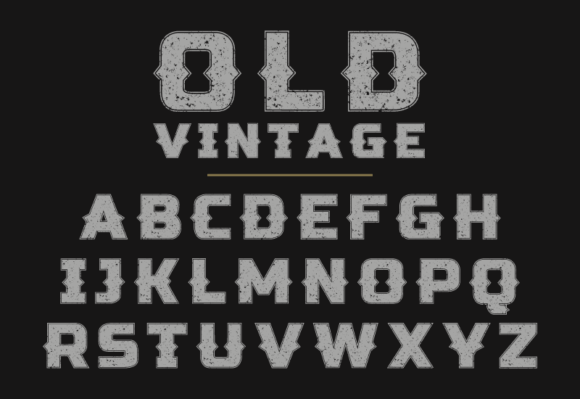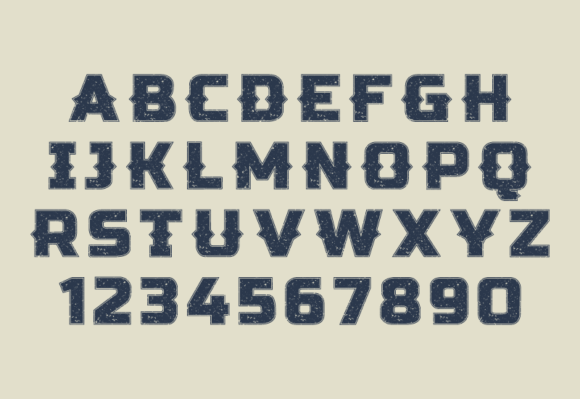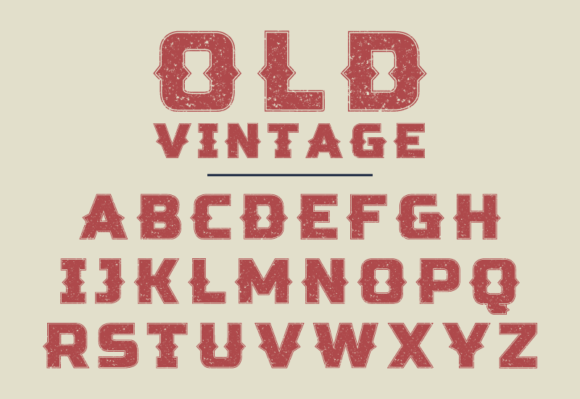
Introduction to Old Vintage Font
Embodying the charm of the Wild West, aesthetic simplicity, and the echo of a bygone era, Old Vintage is a sans serif grunge font characterized by its tastefully balanced proportions.
Its retro-infused design, enthused with a clean and minimalist aura, makes for an ideal choice to embellish logos, web designs, and branding concepts Exceptionally versatile, Old Vintage provides a stunning retro touch to your projects, letting them shine with a distinctly vintage appeal.